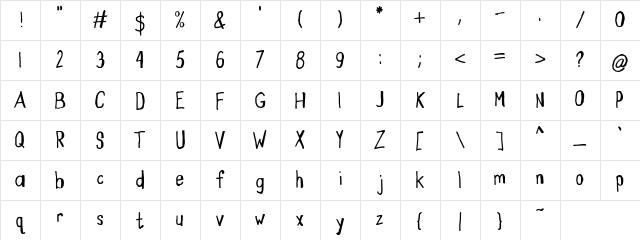
Complete Ugly Rumor Regular glyph index. Displaying only characters natively supported by Ugly Rumor Regular font.
Ugly Rumor is a composed and adaptable typeface that performs quietly and consistently across a wide range of design contexts.